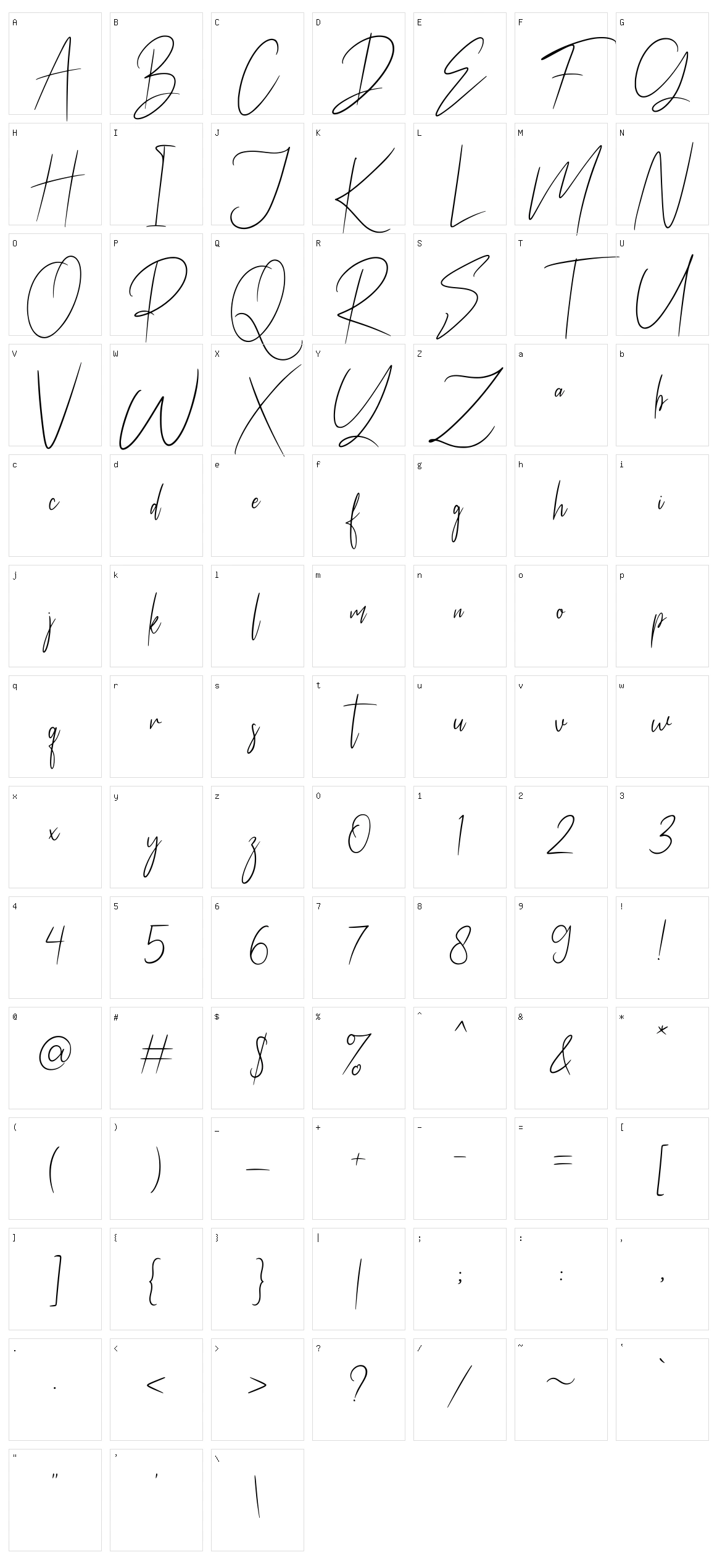
The free font Mastherikur is carefully designed by Abas Creative, showcasing a thoughtful balance of creativity and usability and falls under the Script font style. When you download the ZIP file, it contains only 31.99 KB of font files, making it lightweight and quick to download. Please review the license details below to understand permitted usage and distribution rights. If license information is not available, we recommend using this font for personal projects only or contacting the author directly for commercial usage permissions.